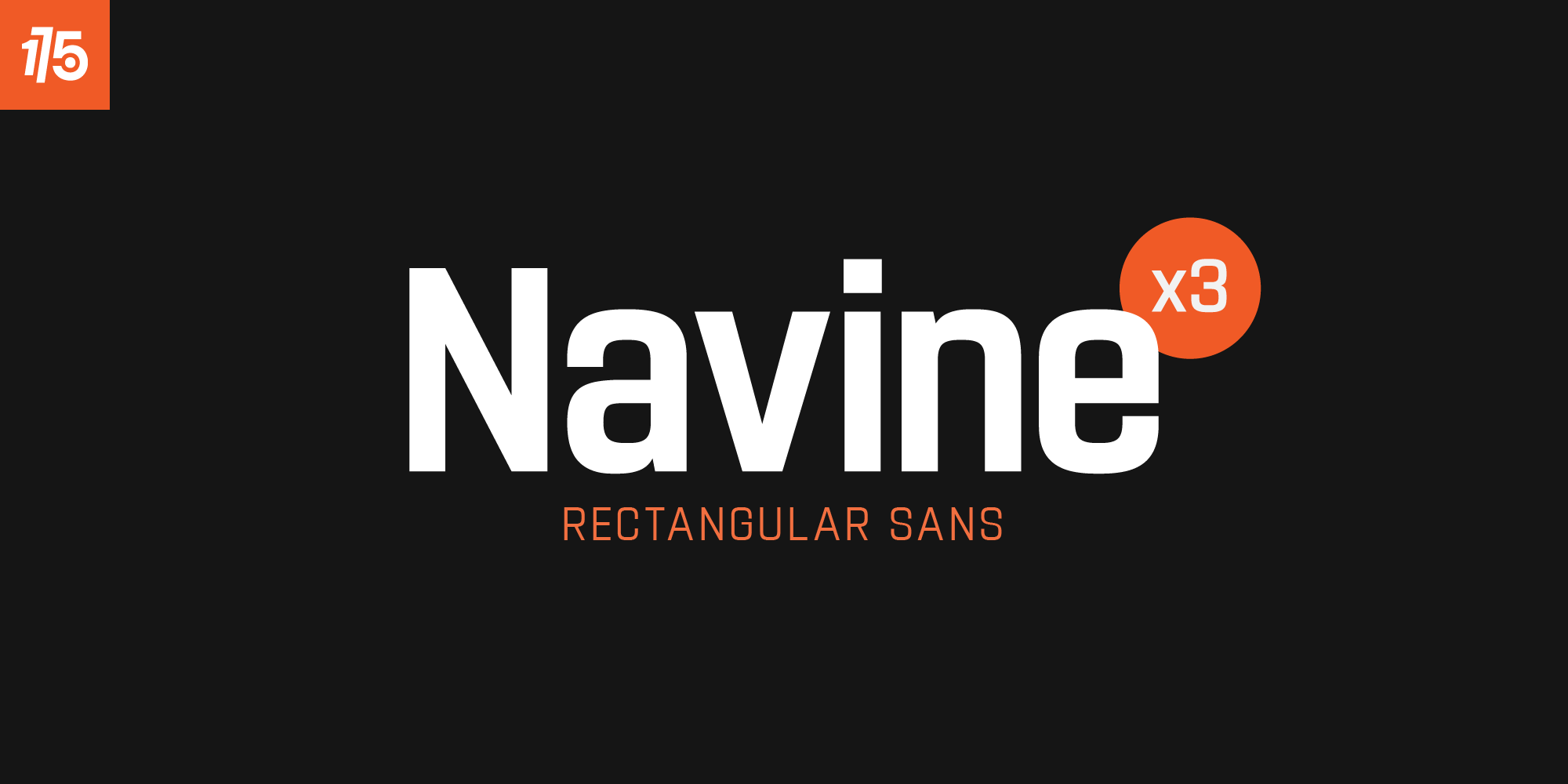
Navine Free Download
Navine Font Free Download
Navine Font is excellent for sophisticated design applications including luxury fashion branding, premium cosmetics packaging, high-end jewelry catalogs, elegant magazine layouts, upscale restaurant menus, boutique hotel signage, refined corporate identity, and exclusive event invitations. This refined typeface brings contemporary elegance and sophisticated charm to projects that demand distinctive luxury appeal.
What makes Navine Font exciting is its masterful balance between modern minimalism and classic sophistication that creates an effortlessly elegant character. The font features carefully refined letterforms with subtle contrast and precise proportions that convey luxury without ostentation. Its understated sophistication appeals to discerning audiences who appreciate refined design and contemporary elegance.
The Navine Font family includes comprehensive stylistic variations such as Light, Regular, Medium, and Bold weights, each available in both upright and italic styles. These elegant options provide complete design flexibility for creating sophisticated brand systems that maintain consistent luxury appeal across diverse applications and media formats.
This premium contemporary typeface represents the evolution of luxury design aesthetics for modern markets. High-end brands and luxury service providers choose Navine Font Free Download for its exceptional ability to communicate sophistication and exclusivity. The font's refined character makes it perfect for luxury retail, premium services, and upscale hospitality brands that target affluent consumers seeking contemporary elegance. Its sophisticated presence ensures memorable brand recognition while maintaining the refined aesthetic that defines exceptional luxury design experiences.